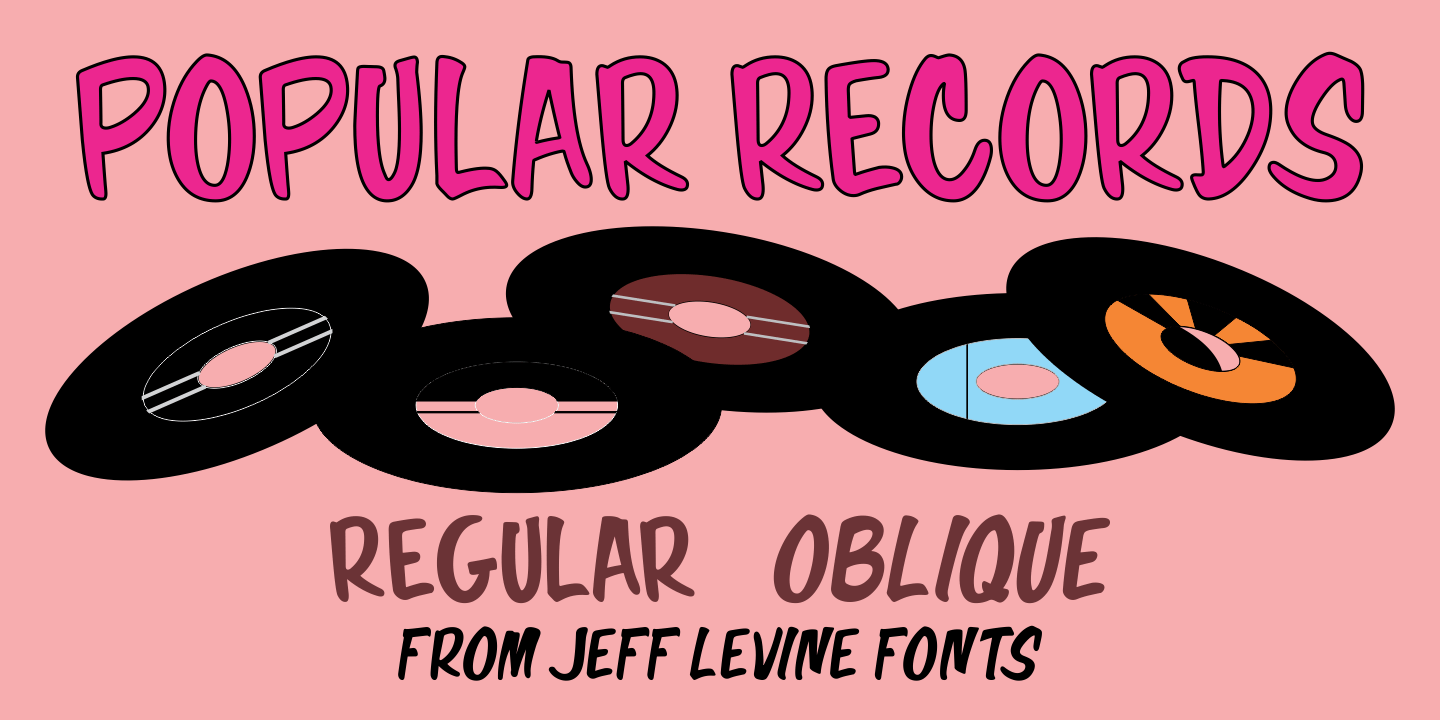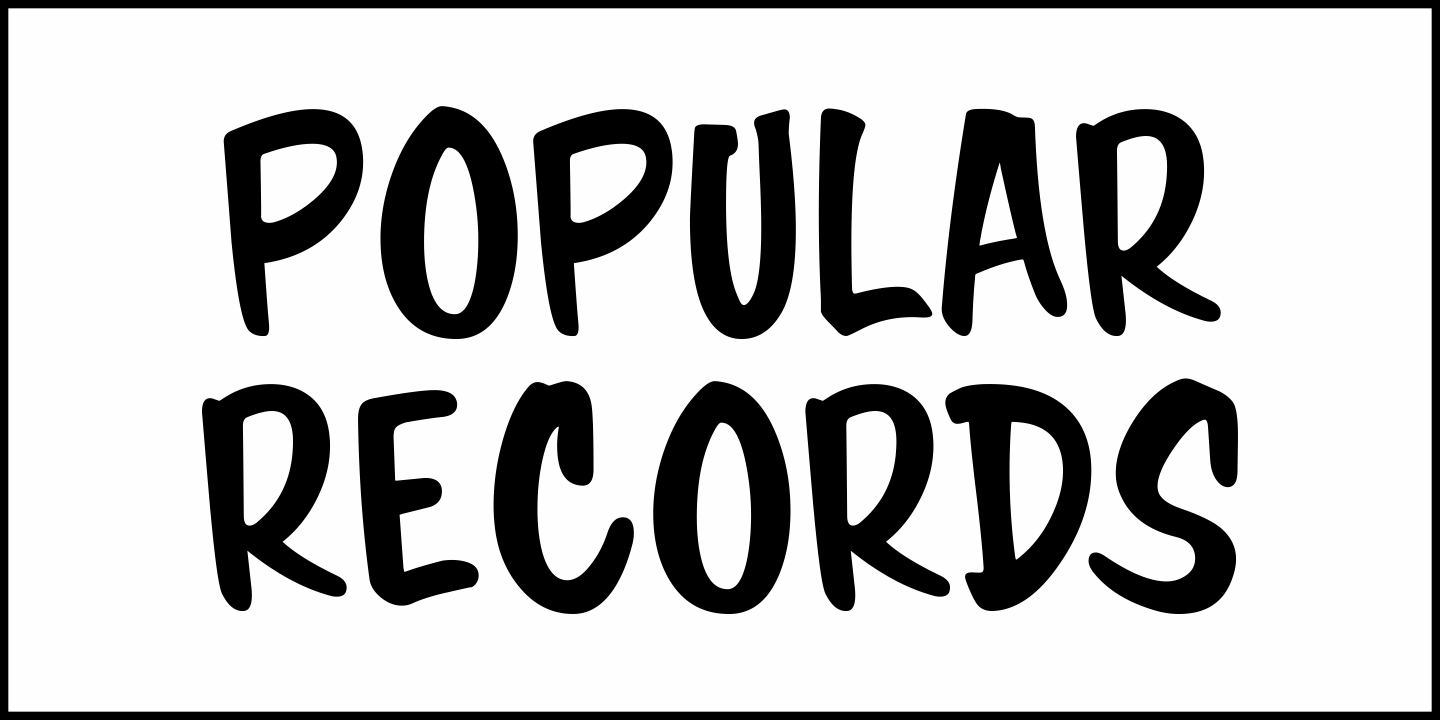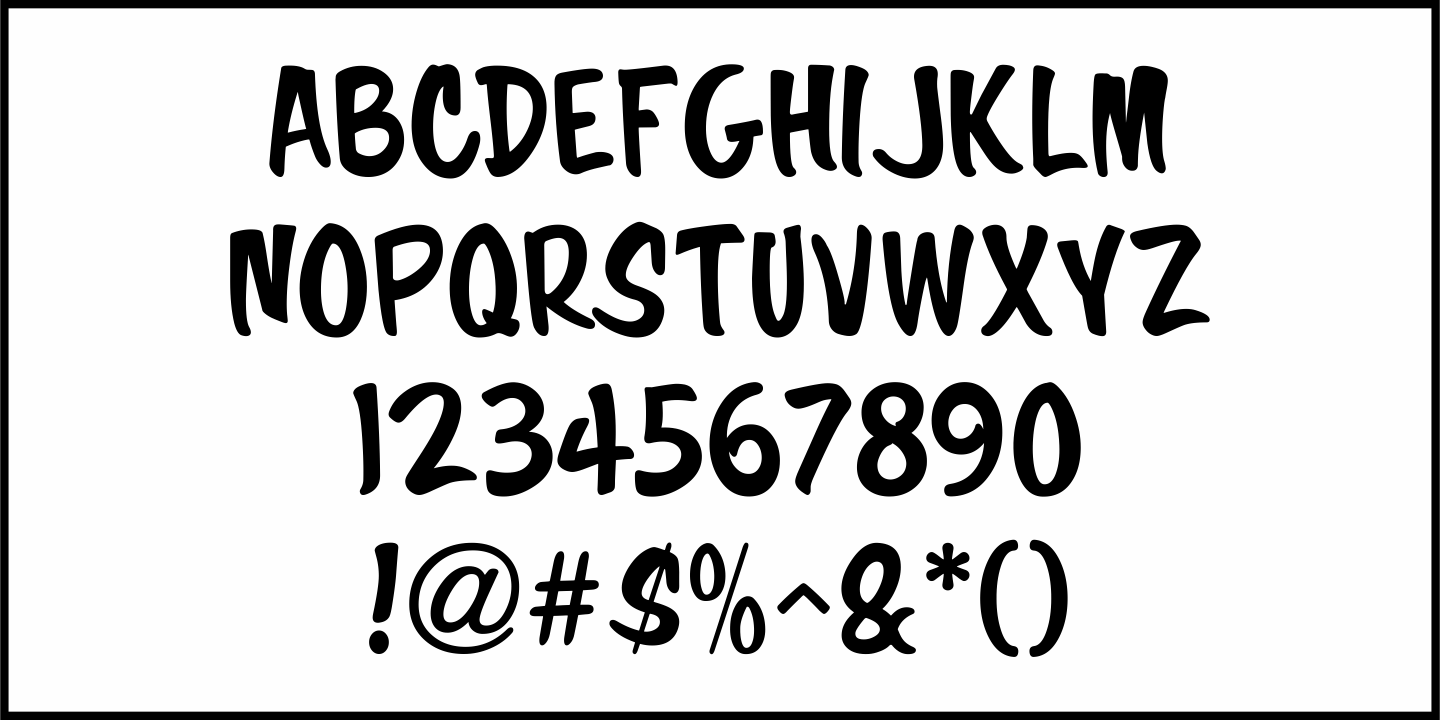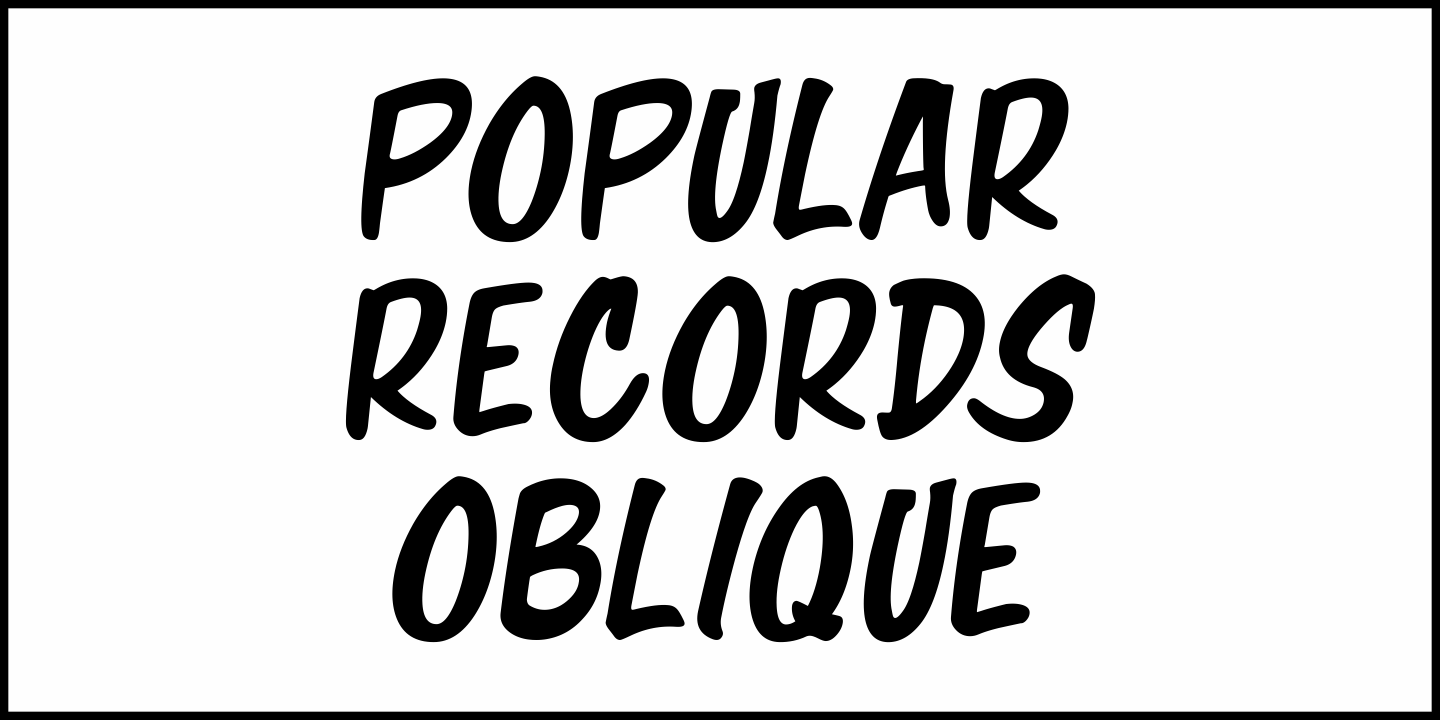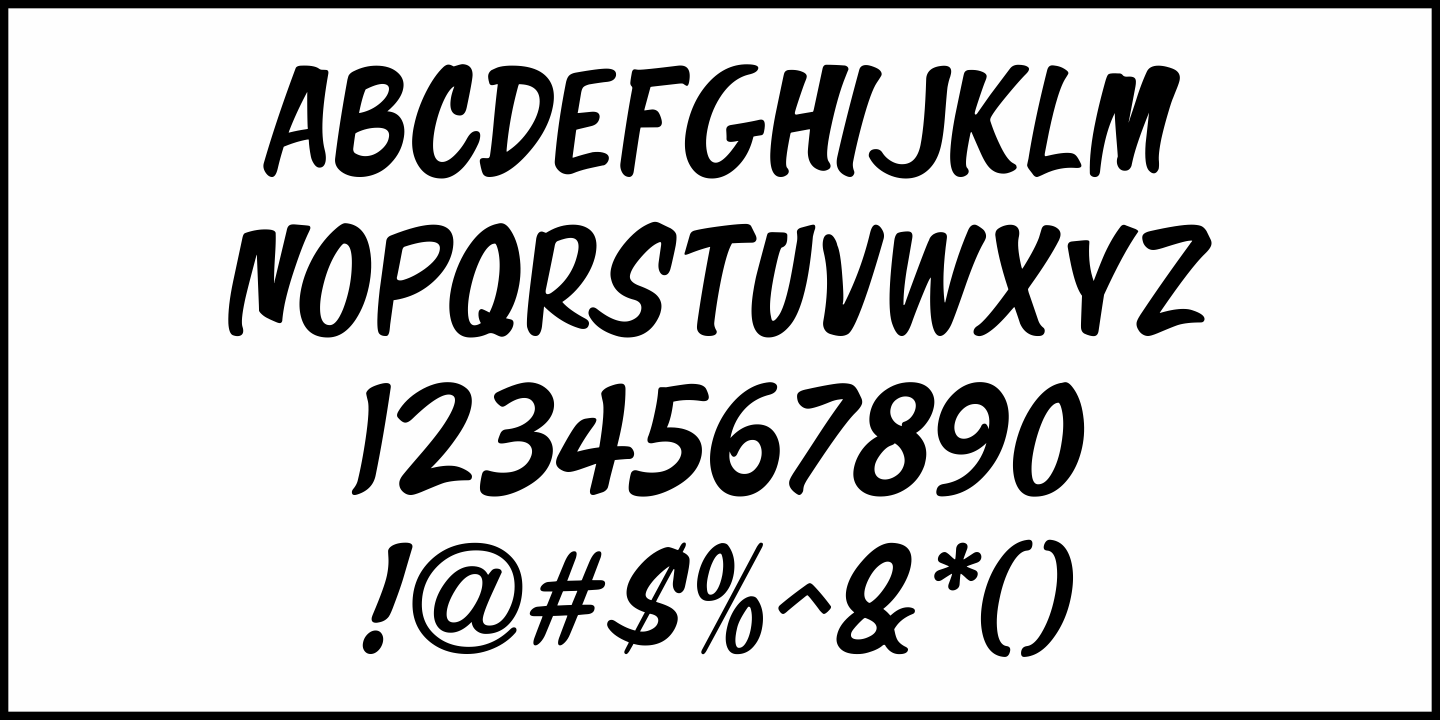
Popular Records
Buy NowBrowsing through an online edition of the Feb 29, 1960 issue of Billboard magazine, an ad was spotted for the Jamie record label of Philadelphia.
The text was hand lettered in a free-form show card style, and this inspired Popular Records JNL, which is available in both regular and oblique versions.